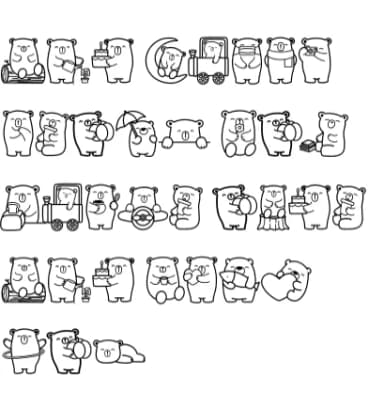
Chonada's Cute Bear Cartoon brings a playful, hand-sketched energy to digital design through dingbats that feel genuinely homemade. The letterforms capture the charm of quick pen strokes and loose character drawings, complete with expressive details like decorative tails and heart accents that add personality without feeling forced. This sketched quality sets the tone for projects where warmth and human connection matter more than design polish.
Use this font for Valentine's Day stationery suites, boho wedding invitation designs, and personalized gift tag sets where that hand-drawn aesthetic resonates with your audience. Scrapbooking layouts and Procreate digital lettering both benefit from the casual confidence these marks bring. Boutique product packaging for handmade goods is another natural fit, since the style reads as small-batch and artisan. The character set is versatile enough to work as both display type and decorative accents, building visual depth across different project scales.
Cute Bear Cartoon Font is a versatile dingbats font that works for both headings and body text. Pair it with a contrasting sans-serif or serif font to add visual interest and a clear distinction between titles and body copy.